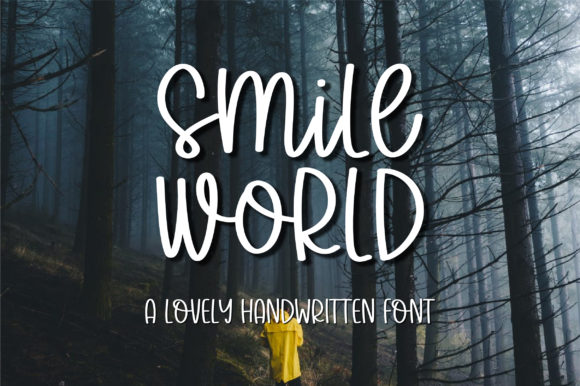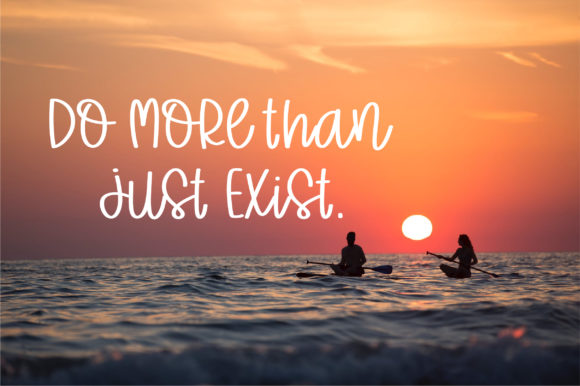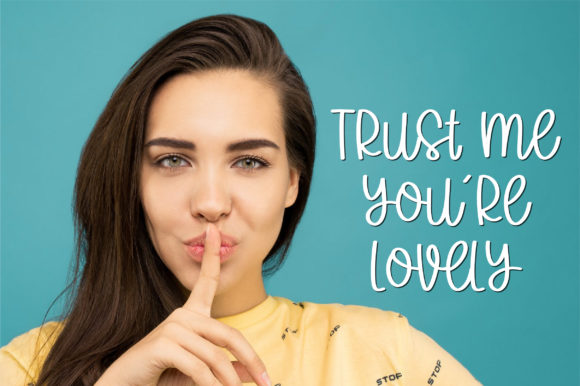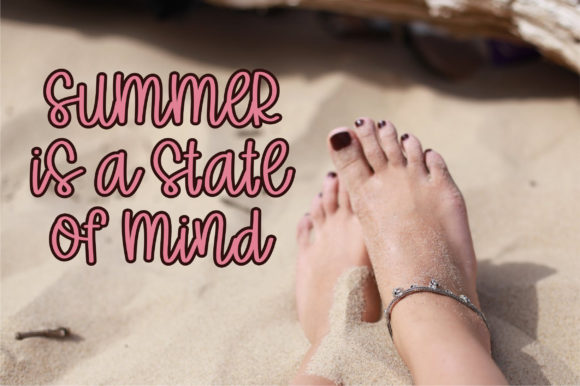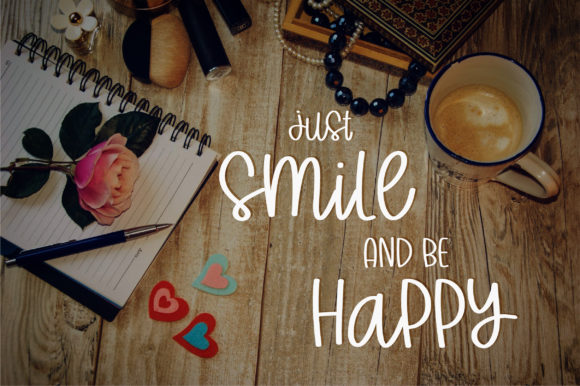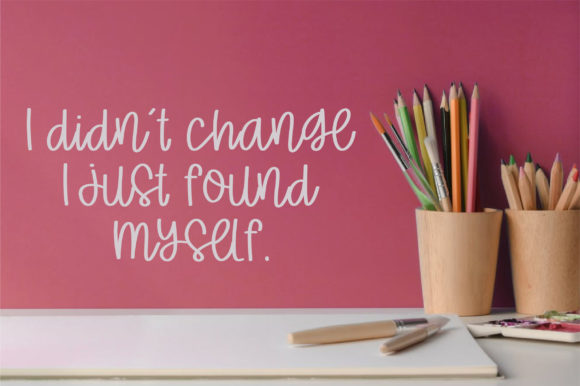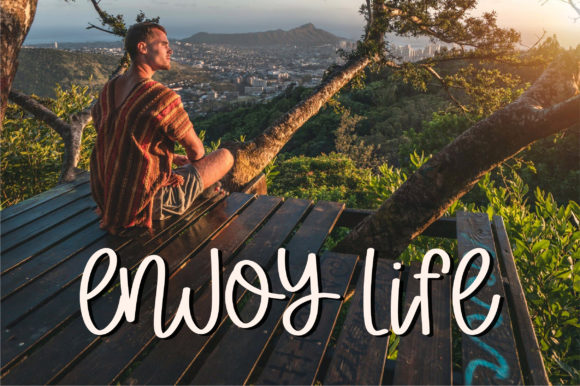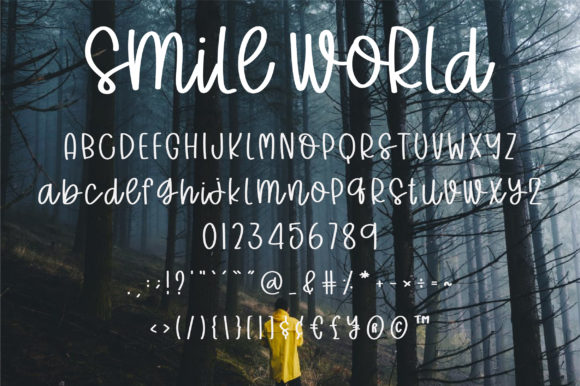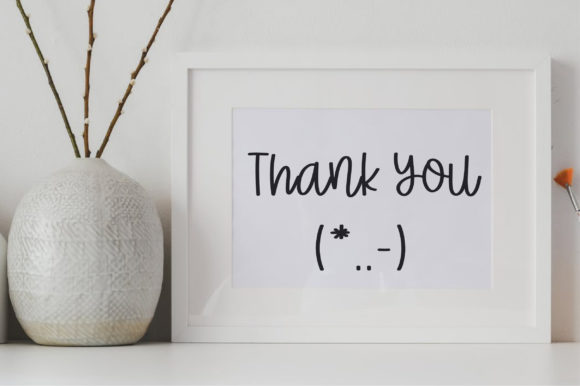
Smile World Font
About Smile World Font
Smile World is a cheerful and friendly handwritten font. It will elevate a wide range of design projects to the highest level, be it branding, headings, wedding designs, invitations, signatures, logos, labels, and much more!